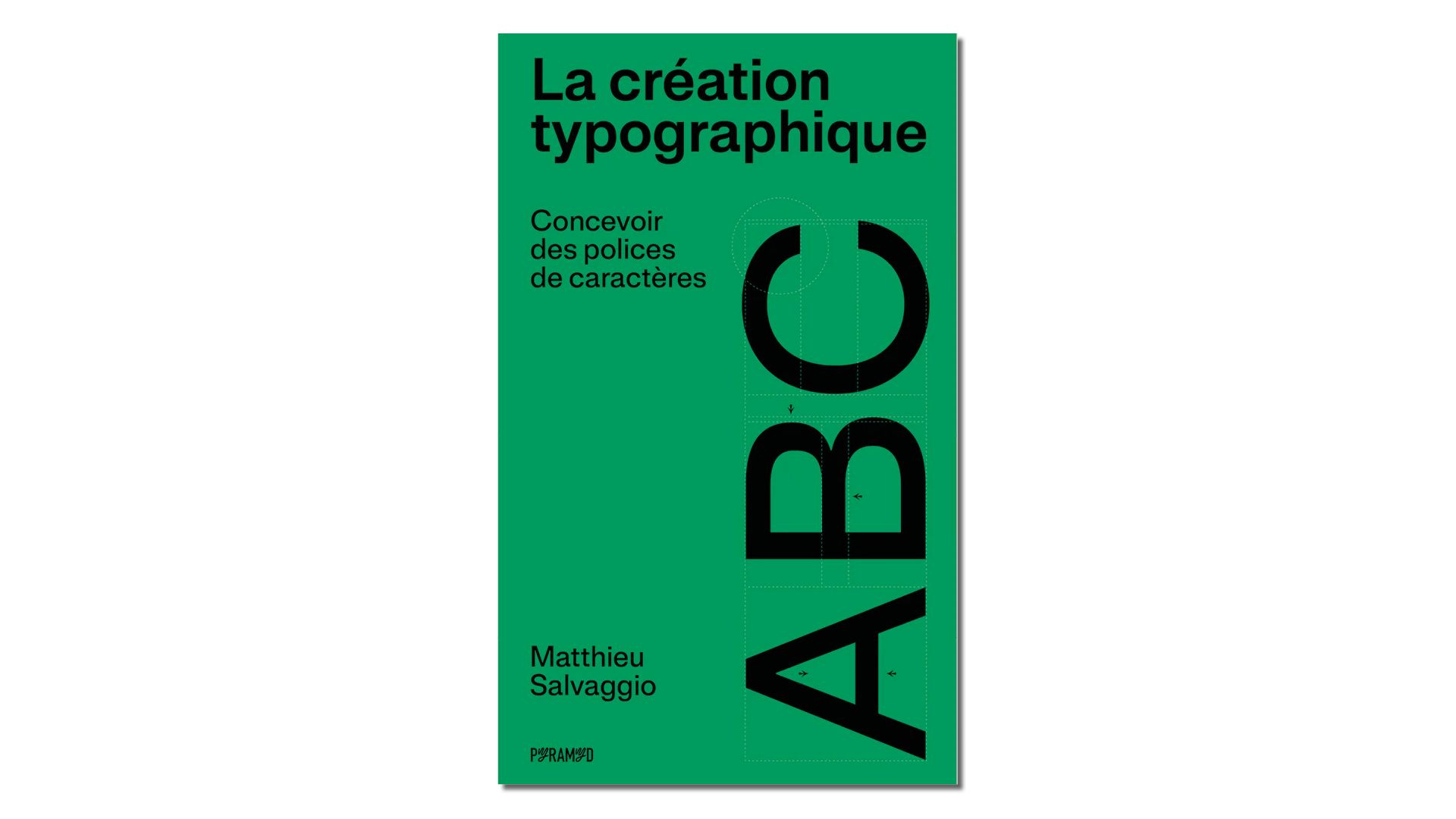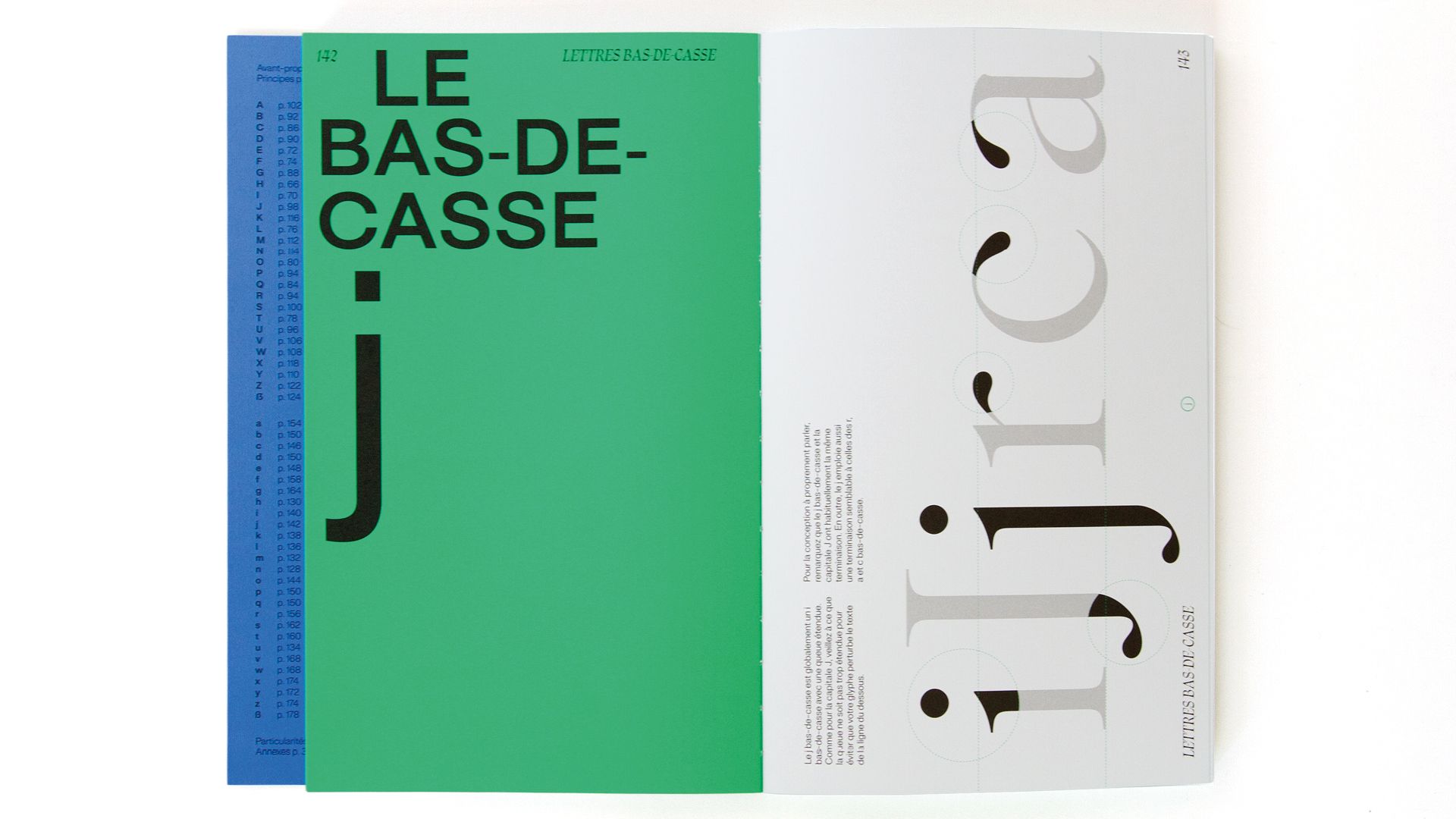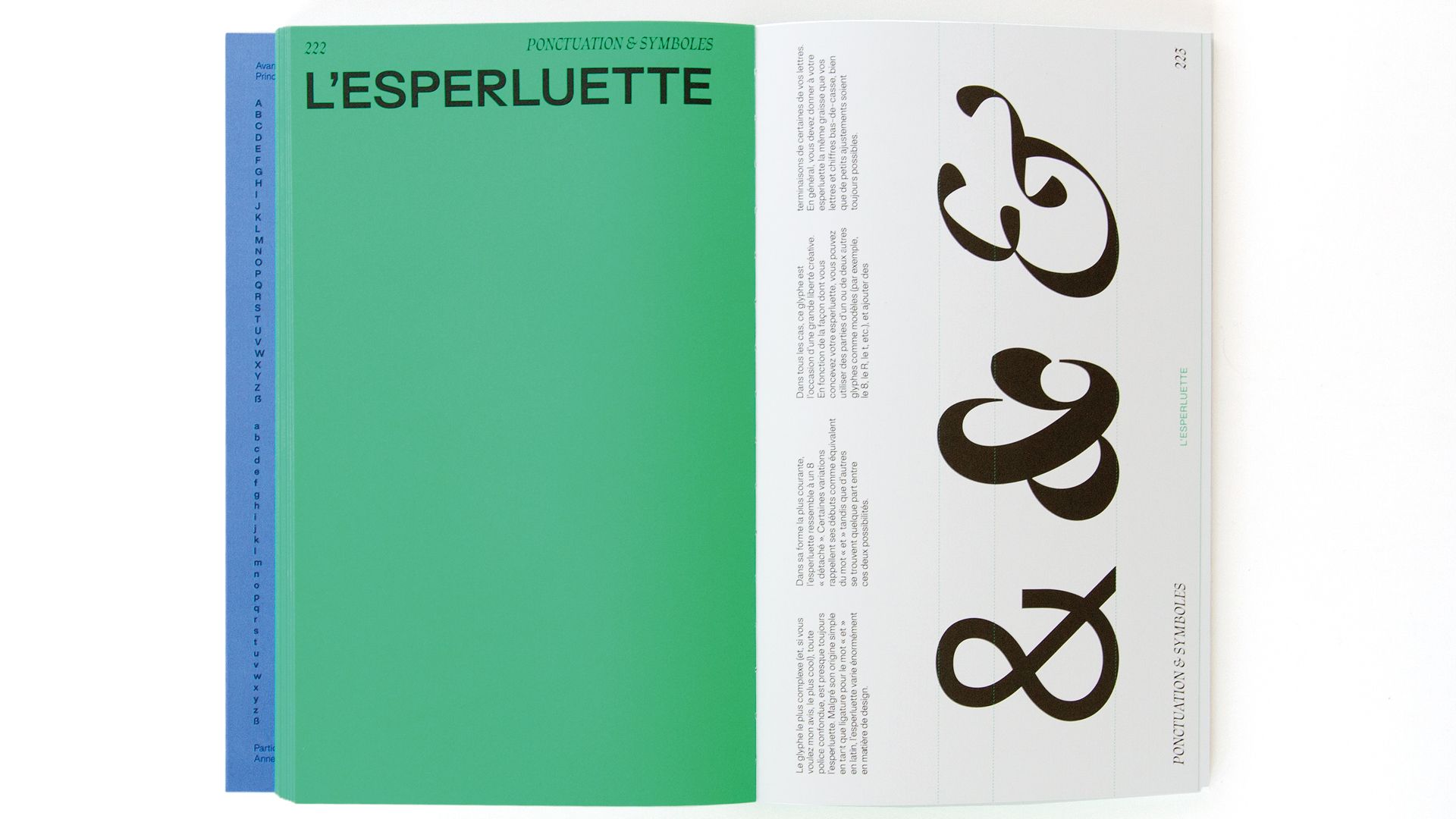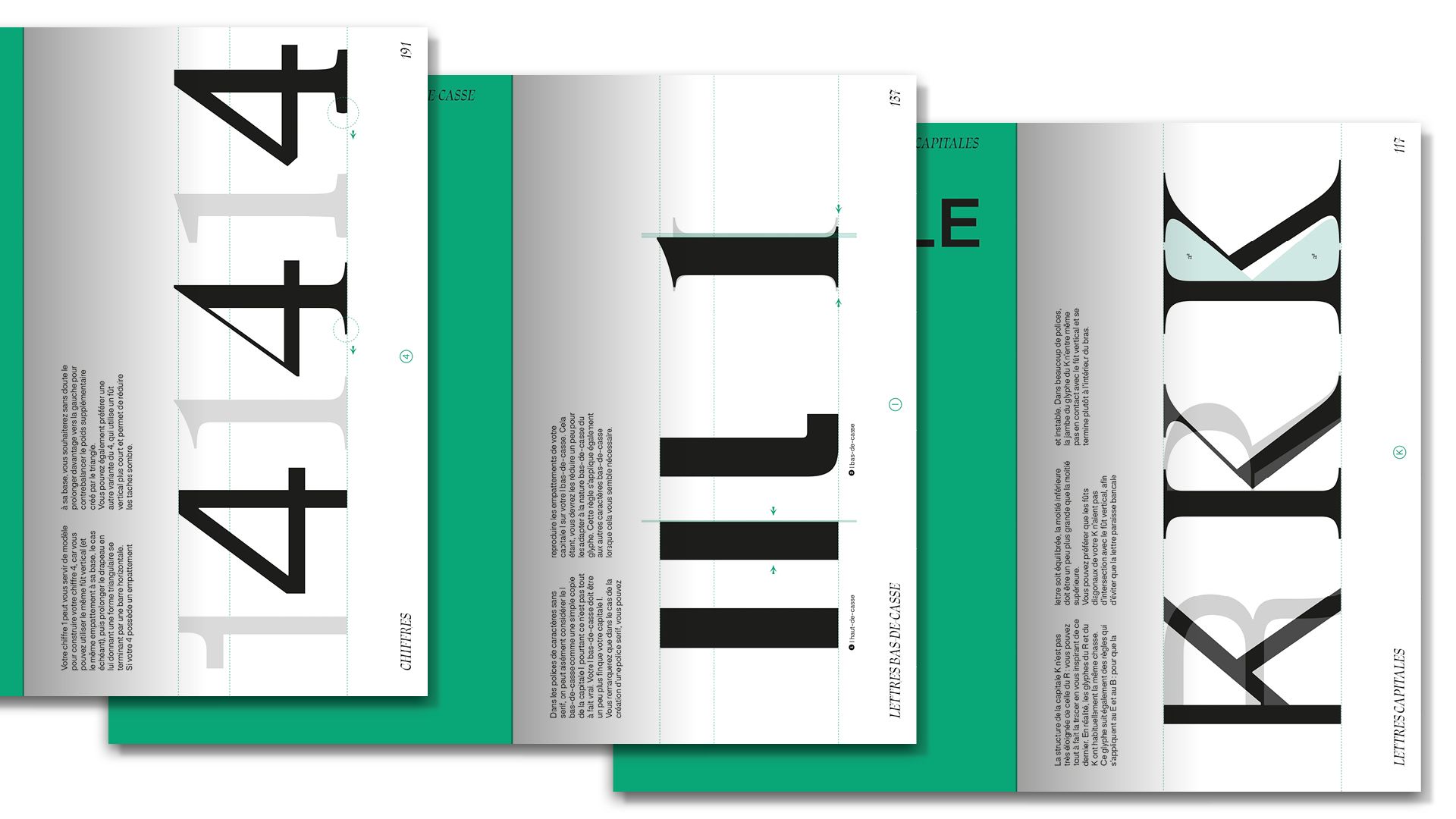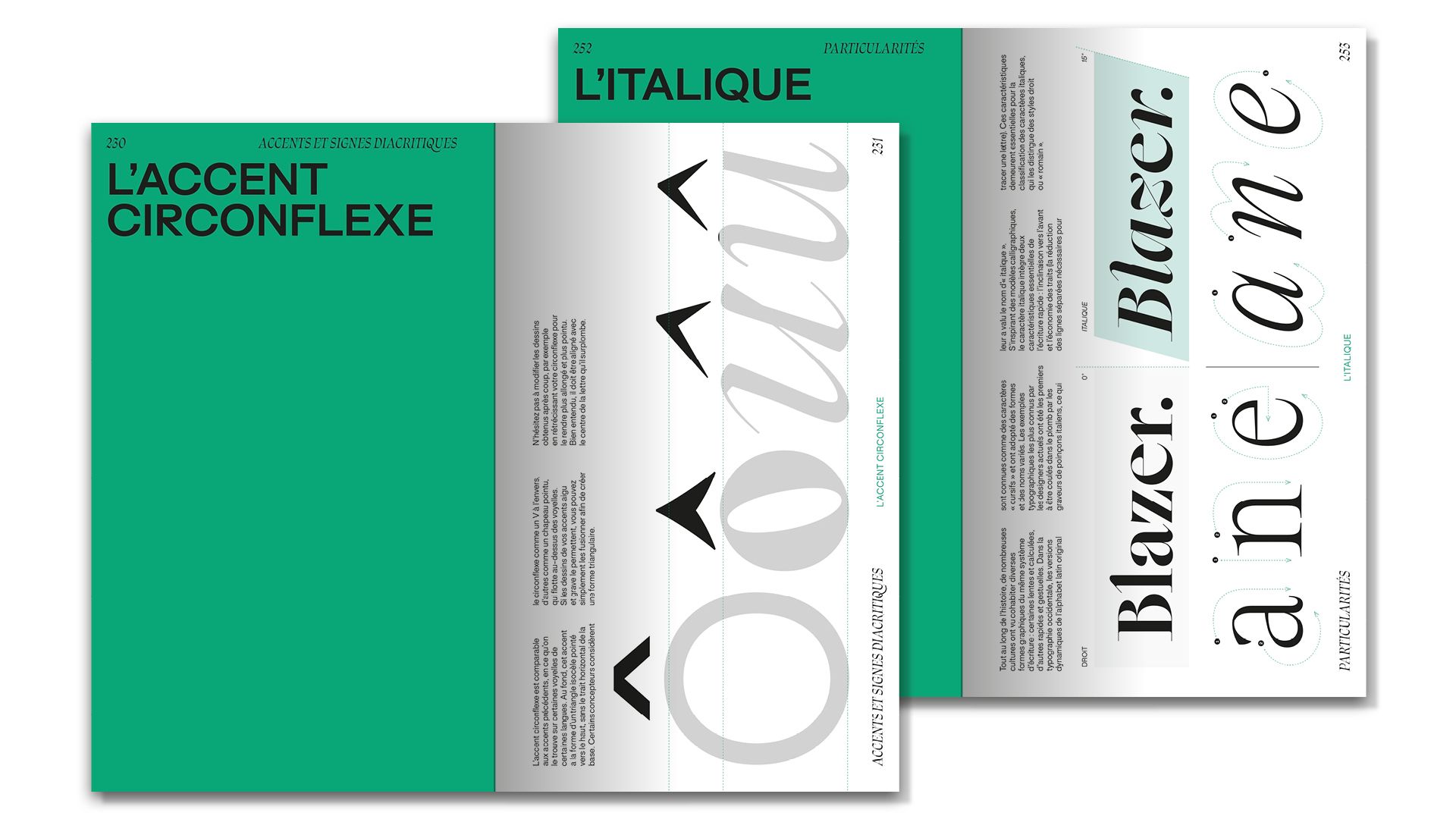
Typographic Design: Designing Fonts
Design Manual by Blaze Type
Typographic Design: Designing Fonts explores the craft of creating type through the perspective of Blaze Type, the French type foundry known for expressive and high‑quality typefaces. The book highlights the educational and professional role of Blaze Type, showing how their typefaces, design philosophy, and teaching initiatives support both emerging and experienced designers.
The publication provides a comprehensive look at Blaze Type’s mission: liberating designers’ creativity with typefaces conceived as real working tools, combining technical precision with strong visual expression. It also addresses licensing, cultural context, and pedagogical aspects, demonstrating the foundry’s commitment to building a knowledgeable design community.
In May 2023, founder Matthieu Salvaggio launched learntype.eu, an online guide for beginners, students, and graphic designers who want to start in type design. This initiative addressed a gap—few accessible, up‑to‑date resources existed, and many quickly become outdated due to ongoing technical developments. Originally conceived as a prototype and laboratory for both content and form, the guide has since been redesigned and expanded into a print book published by French publisher Pyramyd. This new edition is tailored to support today’s designers in their type design journey.
The book itself reflects careful typographic thinking. Behind its understated cover, the object is thoughtfully designed with a soft binding and loose spine that lies flat on the desk, an index on the title page, and a refined two‑color layout that highlights essentials. The horizontal format places titles at the top and text in three clear columns below, guiding the eye and making reading continuous content comfortable without visual overload. Explanations throughout are concise, pragmatic, and supported by clear examples drawn from the Blaze Type catalog—reinforcing the book’s usefulness as a practical reference.
Content in the book is structured progressively into four main sections: Principles, Glyph Analyses, Particularities, and Appendices. The Principles section establishes fundamentals such as vocabulary, typeface anatomy, classifications, serif variations, and optical adjustments — relevant for both newcomers and seasoned practitioners. The Glyph Analyses section, considered the core of the book, breaks down the construction of capitals, lowercase letters, numerals, punctuation, and accent characters in a logical order. The method begins with simple forms like the capital “H”—a cornerstone for many related letters—then progresses to more complex shapes, reinforcing consistency and efficiency in designing a type family.
In the Particularities section, the book dives into noteworthy features of the new edition, including ligatures, stylistic details, and especially the treatment of italics—distinguishing between cursive, oblique, and slanted styles, and examining curves, anchor points, and serifs. Thirty‑two detailed entries unpack these subtleties that demand both a keen eye and technical mastery. The Appendices address often overlooked but essential topics, such as defining a creative brief, marketing a font, licensing models, and useful online resources—all critical for turning typeface design into a professional, distributed tool.
With its 324 accessible and clearly written pages, Salvaggio’s book stands as a contemporary reference for students, graphic designers, and enthusiasts seeking to understand typographic design. Its handy format, excellent readability, and thoughtful structure make it an ideal companion to consult during the design process. In conclusion, the author reminds readers that typography is a field where everyone remains a student for life—emphasizing that the learning journey never truly ends.
Typographic Design: Designing Fonts
Author: Matthieu Salvaggio